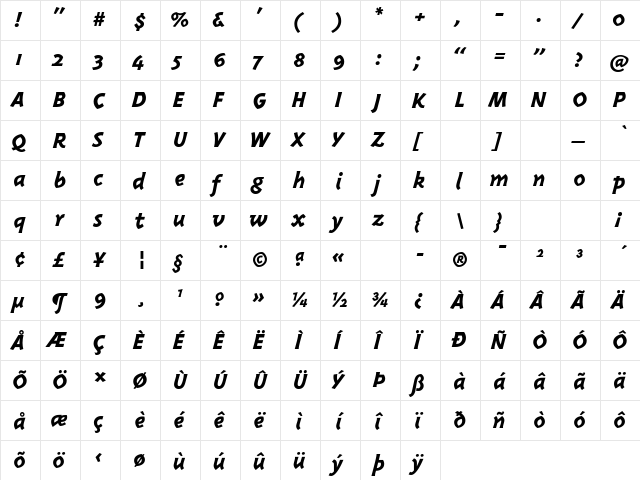
PannikinBlackSSK Italic
Design Context for PannikinBlackSSK Typeface
PannikinBlackSSK takes a measured approach to typography — its balanced proportions and neutral character make it a reliable workhorse for both digital and print work. The dynamic lean of this cut emphasises speed and emphasis in any layout.
Pro Tip: Try PannikinBlackSSK for annotation and caption copy alongside an upright companion — the contrast in angle creates a dynamic but ordered typographic system.